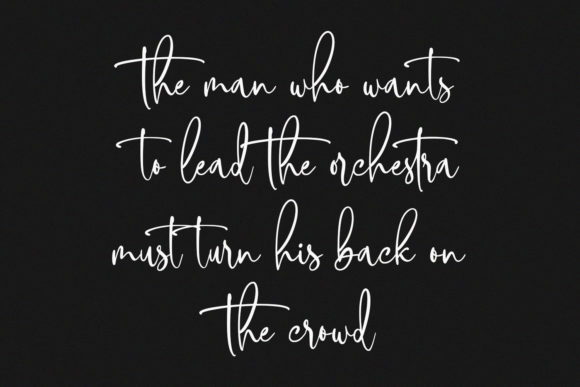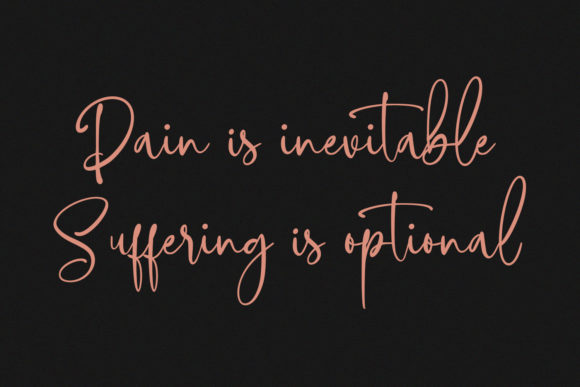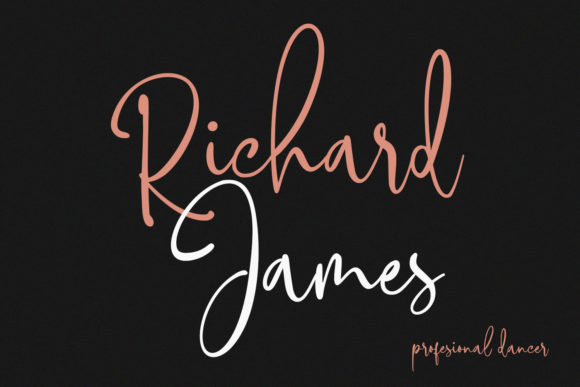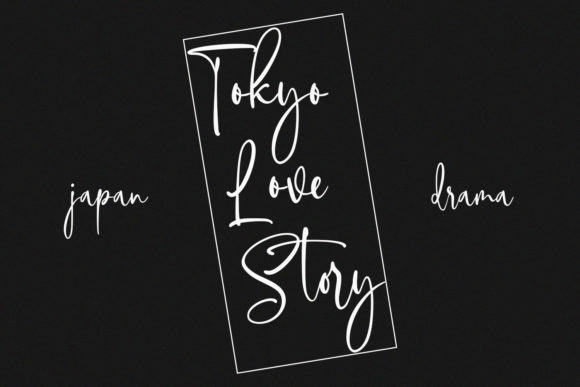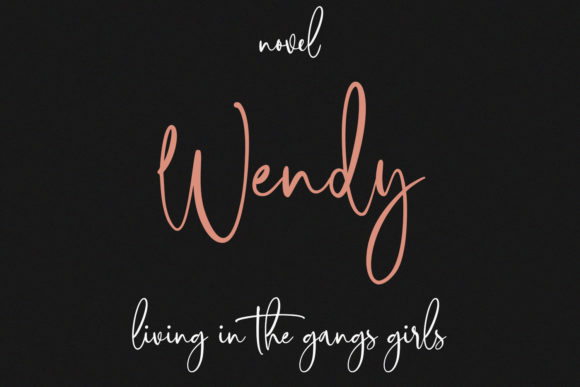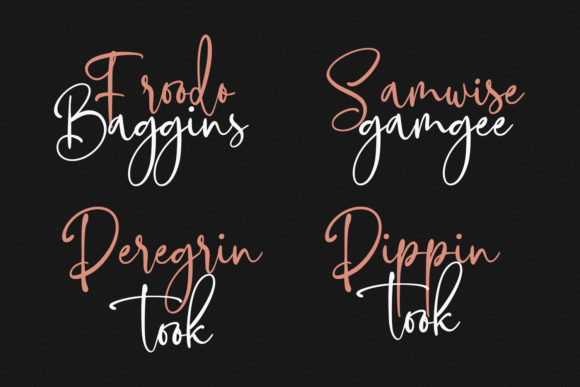
Introduction to Hood Mates Font
Hood Mates is a delicate and fashionable script font.
It is perfect for any branding project such as logos, t-shirt printing, creative products, and more It will look extraordinary in a variety of contexts.
Key Features of Hood Mates Font
Why Choose Hood Mates Font?